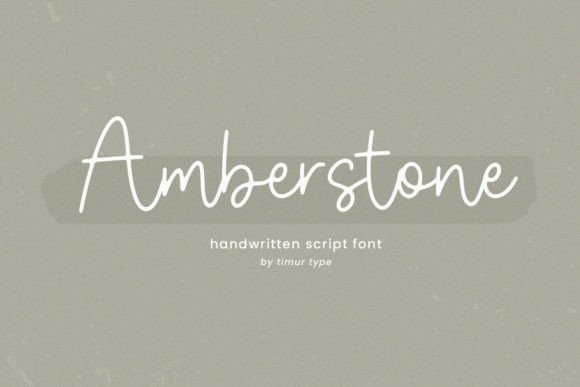
Introducing Amberstone Font: The Epitome of Elegance and Sophistication
In the realm of typography, few fonts have managed to capture the essence of elegance and sophistication as Amberstone Font has. This exquisite handwritten font is a masterpiece, designed to become a true favorite among designers, artists, and anyone who appreciates the art of beautiful writing. With its classy calligraphic influences and contemporary feel, Amberstone Font is the perfect choice for those looking to elevate their projects to the highest levels.
The Design and Features of Amberstone Font
Amberstone Font is a meticulously crafted handwritten font that exudes refinement and poise. Its design is characterized by flowing lines, delicate strokes, and a sense of fluidity that gives it a distinctly calligraphic feel. The font’s creator has masterfully blended traditional calligraphic elements with modern sensibilities, resulting in a typeface that is both timeless and cutting-edge.
One of the standout features of Amberstone Font is its versatility. It comes in a range of styles and weights, making it suitable for a wide variety of applications, from elegant wedding invitations and luxury branding to sophisticated editorial design and high-end advertising. Whether you’re looking to create a bold statement or a subtle impression, Amberstone Font has the flexibility to adapt to your creative vision.
The Benefits of Using Amberstone Font
So, why choose Amberstone Font for your next project? For starters, its unique and distinctive style will instantly set your work apart from the crowd. In a world where generic and overused fonts are a dime a dozen, Amberstone Font offers a breath of fresh air, allowing you to make a lasting impression on your audience.
Another significant benefit of Amberstone Font is its readability. Despite its elegant and cursive nature, the font remains highly legible, even at smaller sizes. This makes it an excellent choice for body text, as well as for headlines and titles.
Furthermore, Amberstone Font is designed to be highly versatile, making it suitable for use across various mediums and platforms. Whether you’re designing for print, digital, or web, this font will consistently deliver a high level of quality and sophistication.
How to Use Amberstone Font Effectively
To get the most out of Amberstone Font, it’s essential to understand its strengths and how to use it effectively. Here are a few tips to help you make the most of this exquisite font:
- Pair it with contrasting fonts: To create visual interest and hierarchy, pair Amberstone Font with contrasting fonts that complement its elegant style. A simple sans-serif font for body text can provide a clean and modern contrast.
- Use it for headlines and titles: Amberstone Font is perfect for headlines and titles, where its elegant and cursive nature can be fully appreciated. Use it to create a lasting impression and draw attention to key messages.
- Experiment with colors and textures: To add depth and dimension to your design, experiment with different colors and textures that complement Amberstone Font. A warm, rich color can enhance the font’s luxurious feel, while a subtle texture can add a sense of tactility.
The Inspiration Behind Amberstone Font
The inspiration behind Amberstone Font is rooted in the rich tradition of calligraphy and handwriting. The font’s creator drew inspiration from classic calligraphic scripts, while also incorporating modern elements and sensibilities.
The result is a font that feels both timeless and contemporary, with a unique personality that sets it apart from more generic fonts. Whether you’re looking to evoke a sense of luxury, sophistication, or elegance, Amberstone Font is the perfect choice.
In conclusion, Amberstone Font is an exquisite handwritten font that is sure to become a true favorite among designers and artists. With its classy calligraphic influences, contemporary feel, and versatility, it’s the perfect choice for anyone looking to elevate their projects to the highest levels.
Whether you’re designing for print, digital, or web, Amberstone Font is a timeless and elegant solution that will consistently deliver a high level of quality and sophistication. So why settle for generic and overused fonts when you can have a truly exceptional typeface that will make your work stand out?